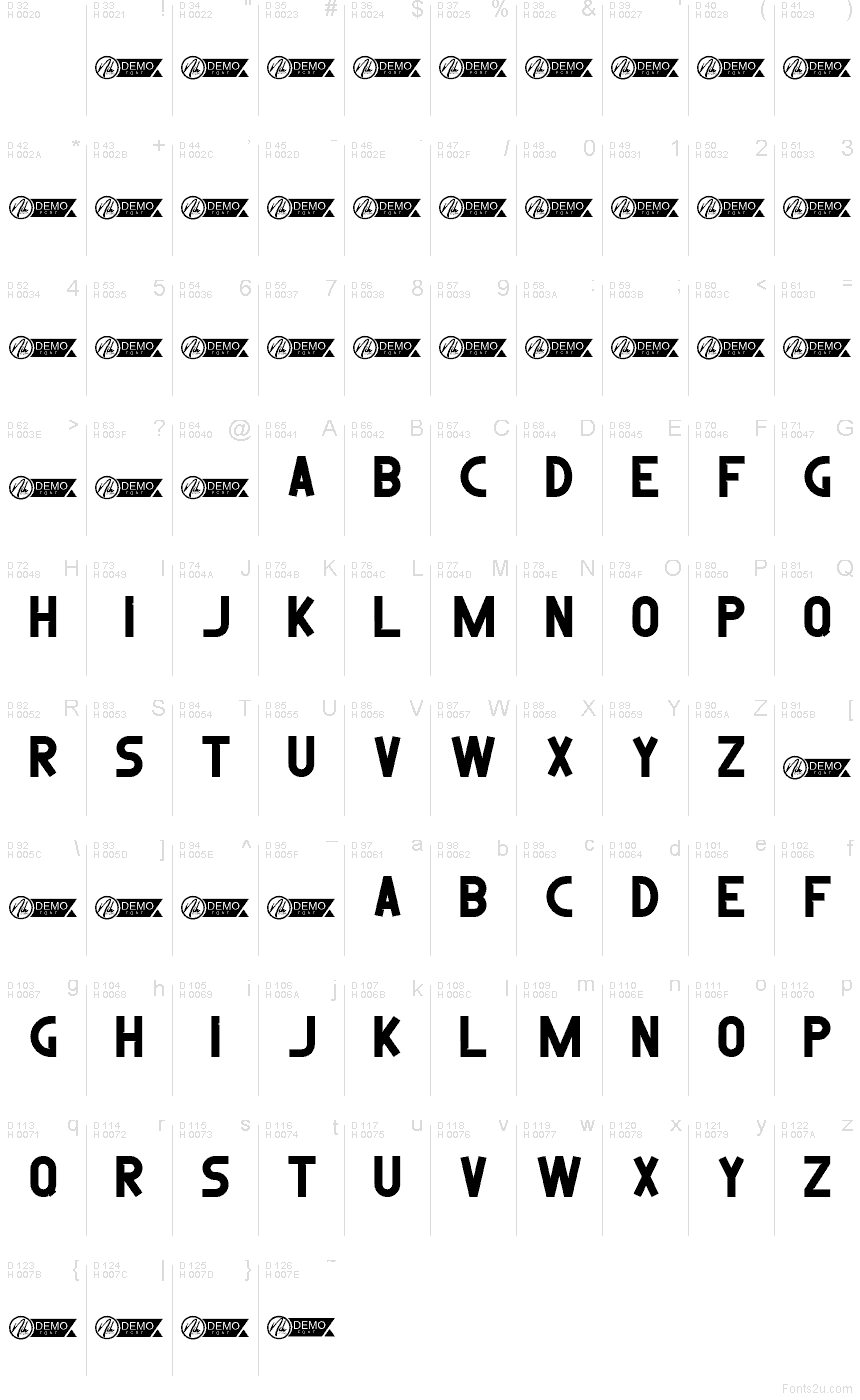
Street Racing Demo
Street Racing font by NihStudio is a free racing display typeface that hits the gas on bold, angular letterforms and sharp, cut-off corners. Its all-caps structure, tight spacing, and slightly compressed shapes feel like they’re pulled straight from a car body kit or trackside banner, with a solid, blocky weight that reads clearly even at high speed. There’s a gritty, mechanical energy to the strokes that makes every word feel like it’s in motion.
Using Street Racing, this free font shines on motorsport logos, car meet posters, tuner garage branding, energy drink labels, esports teams, and adrenaline-heavy YouTube thumbnails. The compact width helps you pack long names into narrow spaces without losing impact, while the hard-edged geometry keeps everything aggressive and focused. For clean hierarchy, pair it with a neutral sans serif in smaller text and let Street Racing handle the loudest headlines at large sizes.